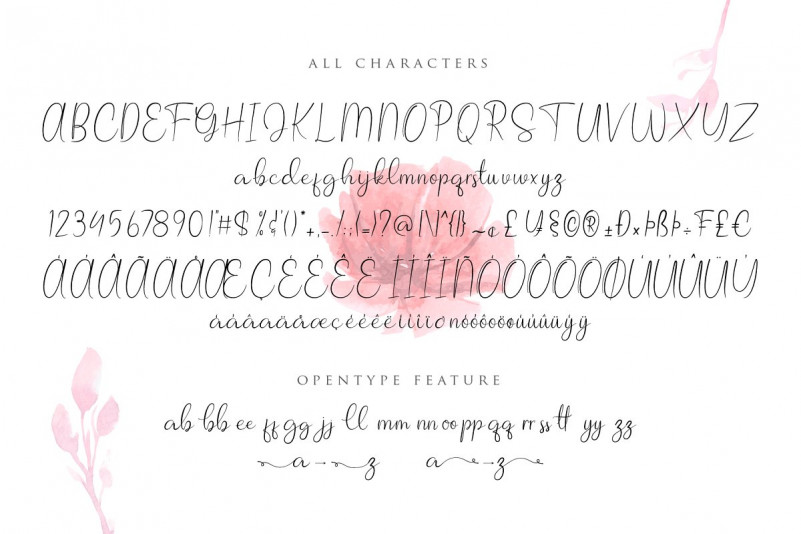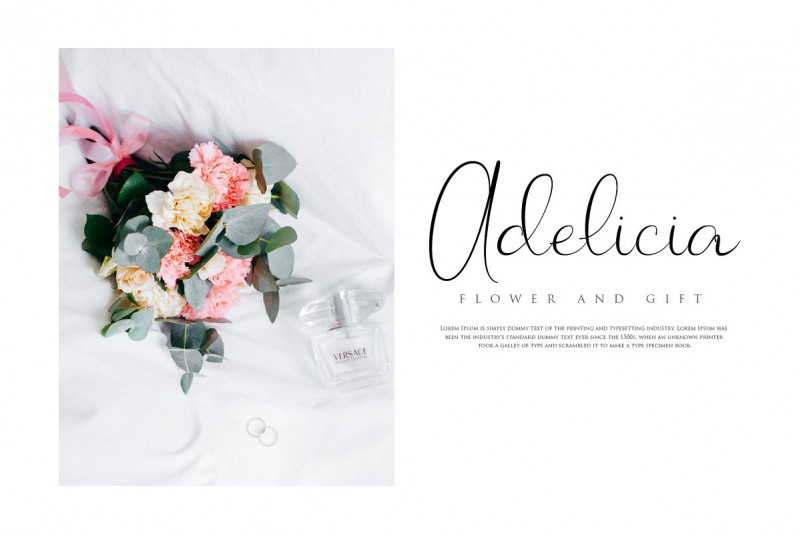
Allagia Script Font
Allagia Script Font – Free Demo
Hello Guys! This is a lovely script font. It has a classic feel and a natural writing style. A signature font perfect for all your design and print projects. Introducing Allagia Font. Allagia Script Font with natural handwriting style perfect for many different project such as logos & branding, invitation, stationery, wedding designs, social media posts, advertisements, product packaging, poster, product designs, label, photography, watermark, special events or anything, quotes, fashion, etc…